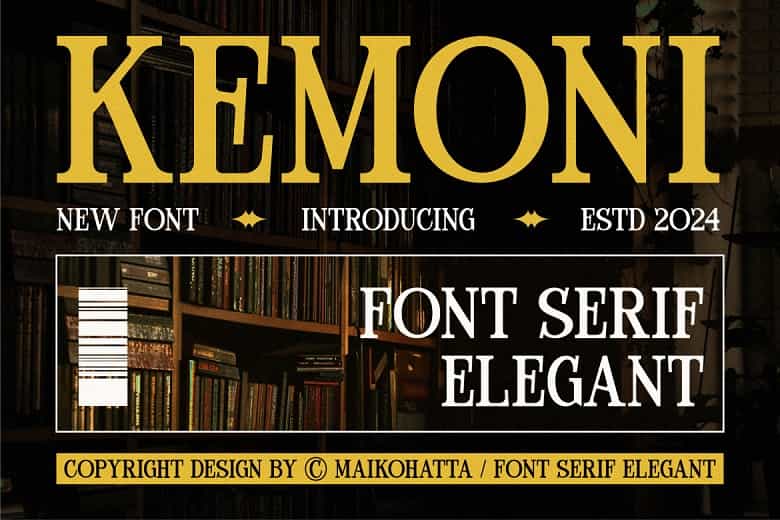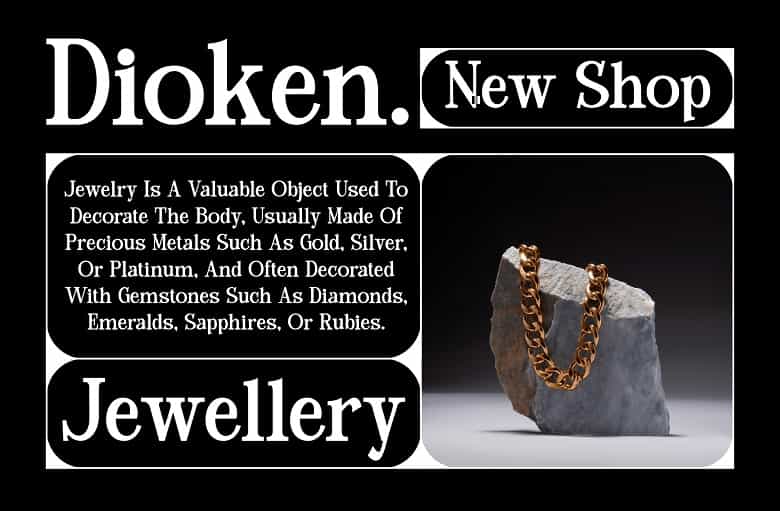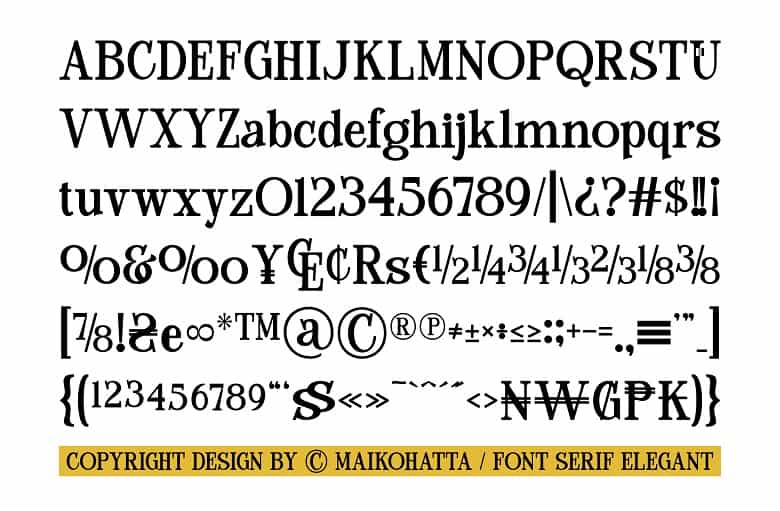
Kemoni is a new serif type of letter that has special features that will give an impression of sophistication, sophistication and strength. This font involves several design features including the presence of thin and thick strokes, curved shapes and the best of all, clean serif styles.